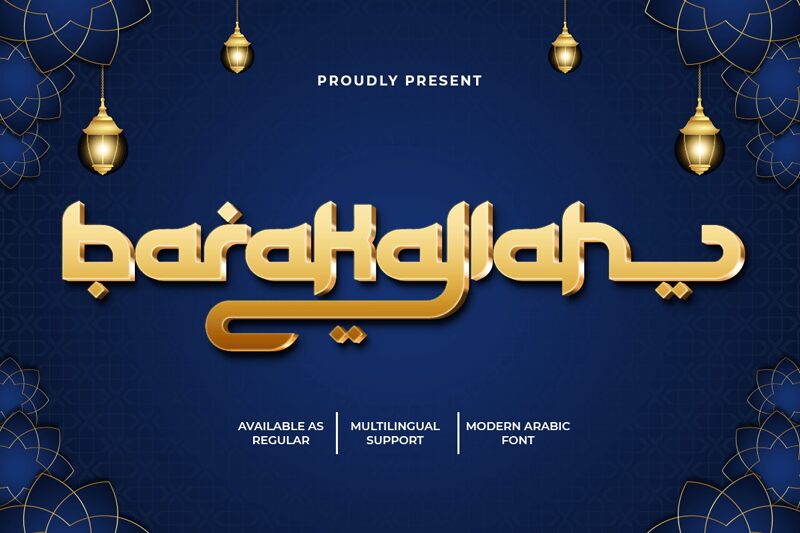
Barakallah - a bold and expanded Arabic font that commands attention. Designed by Kong Font, this striking typeface exudes a sense of grandeur and strength, its expansive letterforms and impactful weight conveying a powerful presence.
The Barakallah font lends itself seamlessly to a variety of design applications, from commanding headlines and titles to lending a touch of elegance and authority to corporate branding, editorial layouts, and beyond. Its bold, confident aesthetic makes it an ideal choice for projects requiring a bold, memorable typographic statement, whether in print or digital media.
With its distinct visual character and versatile appeal, Barakallah is a font that demands to be noticed and leaves a lasting impression on the viewer.